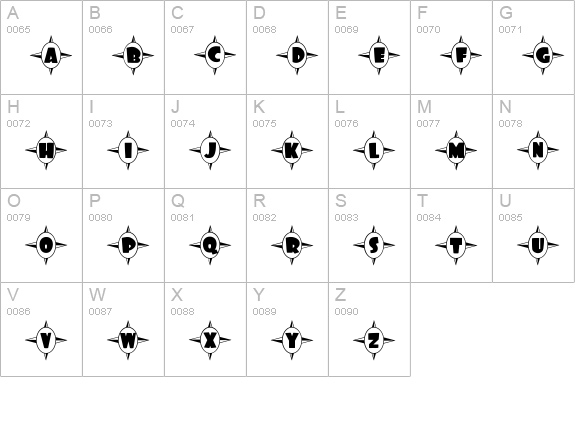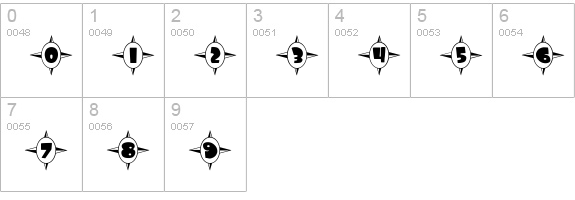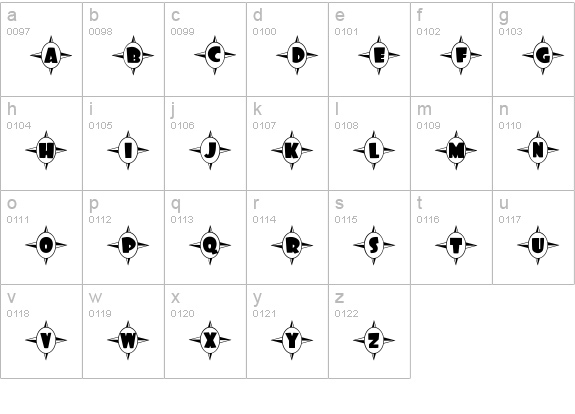
Shopping Center JL Font Details
Shopping Center JL font is a stylish and modern typeface that adds a touch of elegance to any design project. With its clean lines and bold letterforms, this font is perfect for logos, signage, and branding materials. The Shopping Center JL font features a unique combination of sharp corners and smooth curves, giving it a distinctive and eye-catching look. One of the best aspects of the Shopping Center JL font is that it is freely available to download at FontsMarket.com. This means that you can access this fantastic font without any cost, making it a great choice for budget-conscious designers. Whether you are a professional designer or a hobbyist, this font allows you to create stunning visuals without breaking the bank. The versatility of the Shopping Center JL font is another reason why it is a must-have for any designer. It works well in both large and small sizes, ensuring that your message is clear and legible in any context. The font also includes a wide range of characters and glyphs, allowing you to express yourself creatively and add personal touches to your designs. In addition to its aesthetic appeal, the Shopping Center JL font is also highly functional. It is compatible with various software and design platforms, making it easy to integrate into your existing workflow. The font is also optimized for both print and digital use, ensuring that your designs look stunning across all mediums. Whether you are working on a branding project, a website design, or any other creative endeavor, the Shopping Center JL font is sure to elevate your work to new heights. With its elegant and modern design, versatility, and functionality, this font is a valuable addition to any designer's toolkit. And the best part? It is available for free download at FontsMarket.com! So why wait? Grab the Shopping Center JL font today and start creating stunning designs effortlessly.